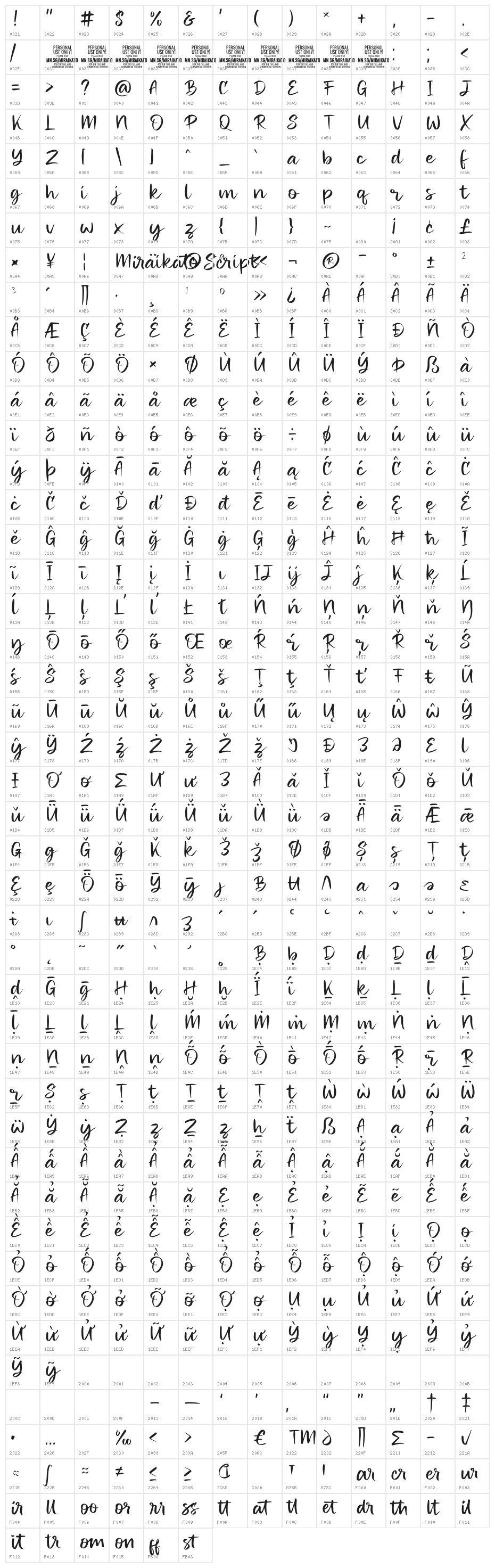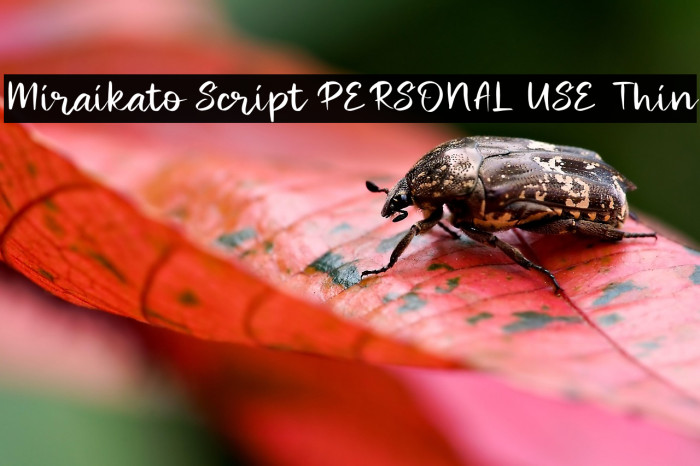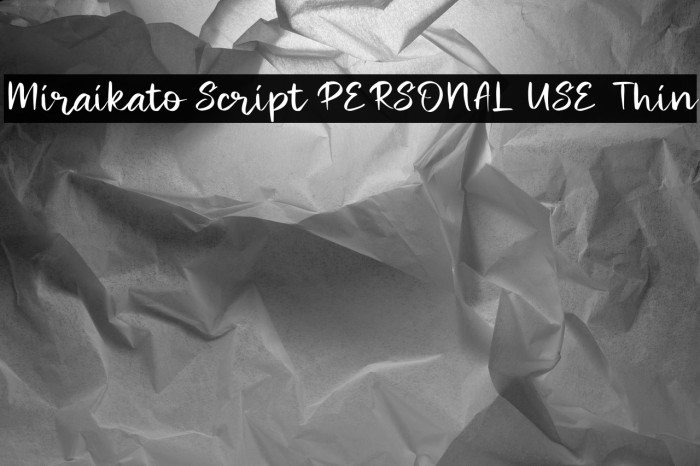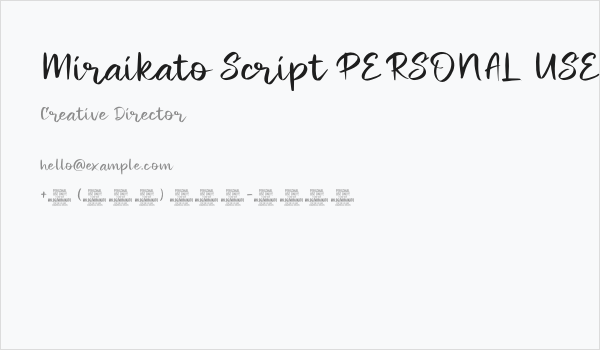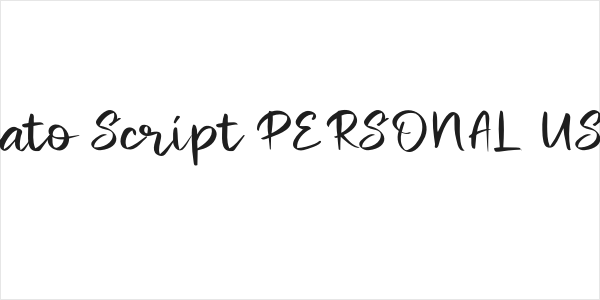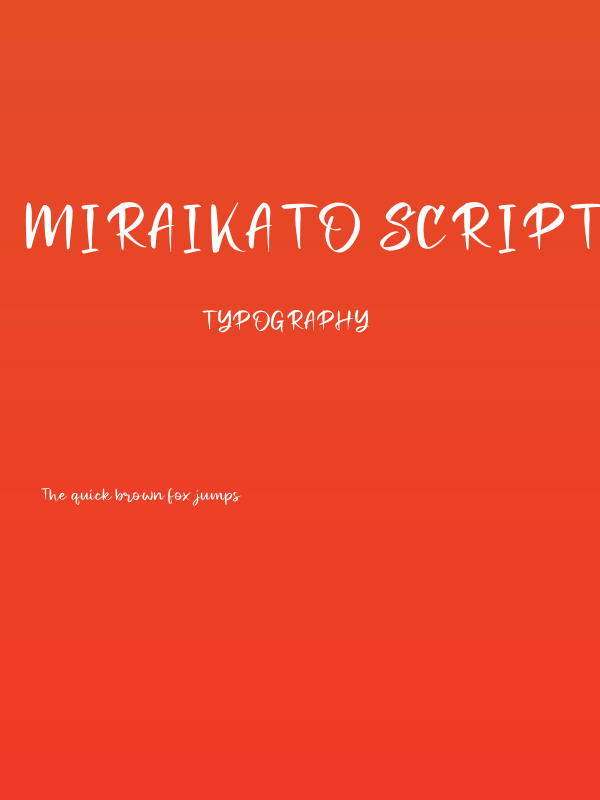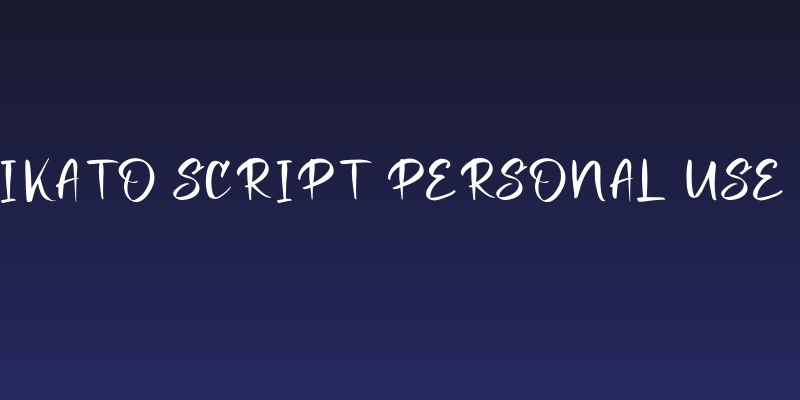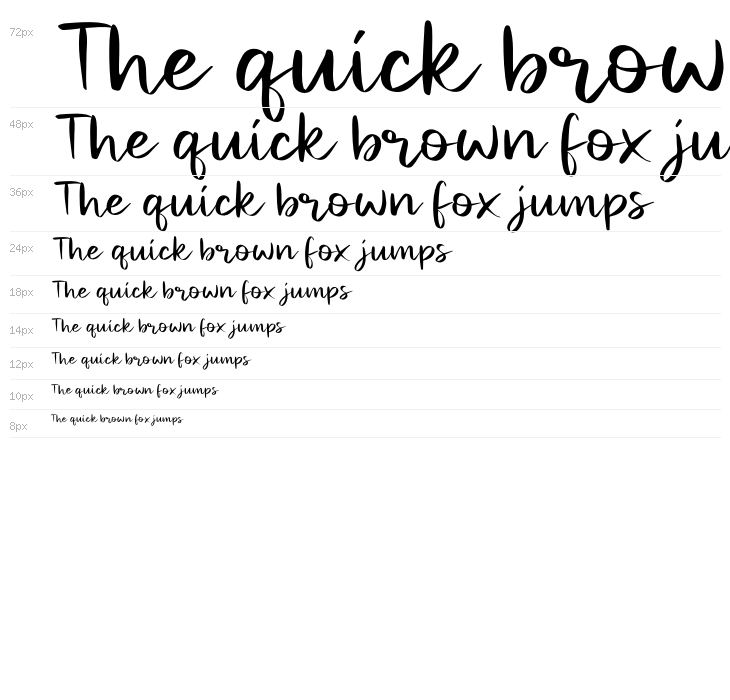
Miraikato Script PERSONAL USE Thin Font
Miraikato Script PERSONAL USE Thin Description
This script font features a dynamic and flowing style, characterized by its elegant and fluid strokes. The uppercase letters exhibit a playful yet sophisticated flair, with each character maintaining a consistent rhythm and balance. The lowercase letters continue this theme, offering a seamless connection between characters that enhances readability while preserving the font's artistic nature. The numerals and special characters are crafted with the same attention to detail, ensuring a cohesive appearance across all text elements. This font's thin weight adds a touch of delicacy, making it suitable for designs that require a personal and handwritten touch.
Use CaseLogos, Invitations, Artistic projects
Proposed ProjectsIdeal for wedding invitations, greeting cards, personal branding, and artistic projects requiring a handwritten aesthetic.